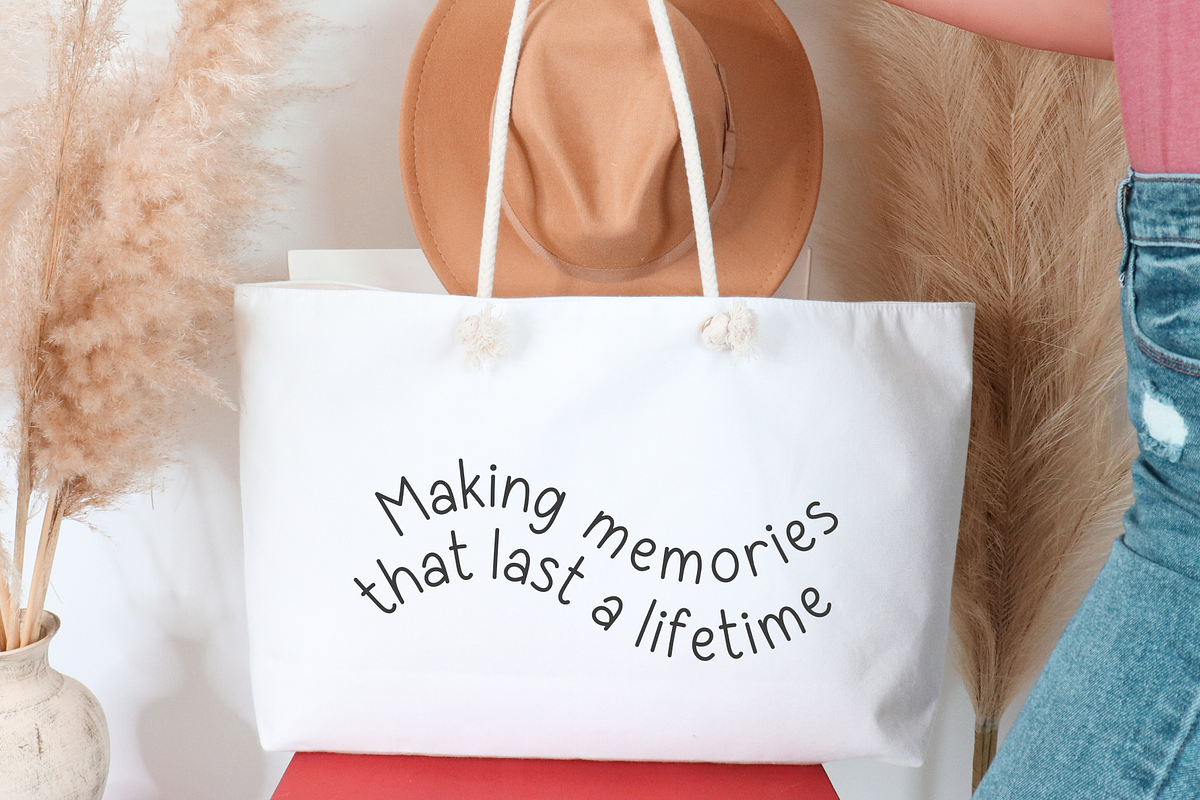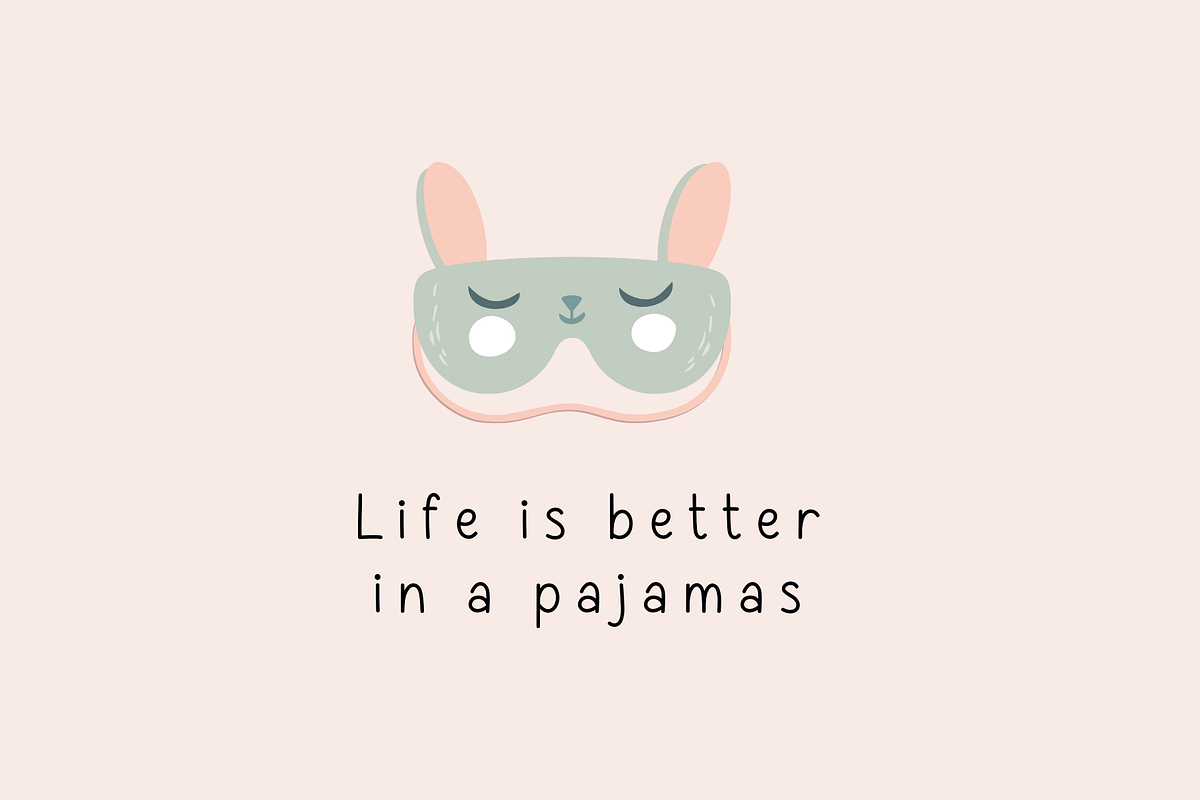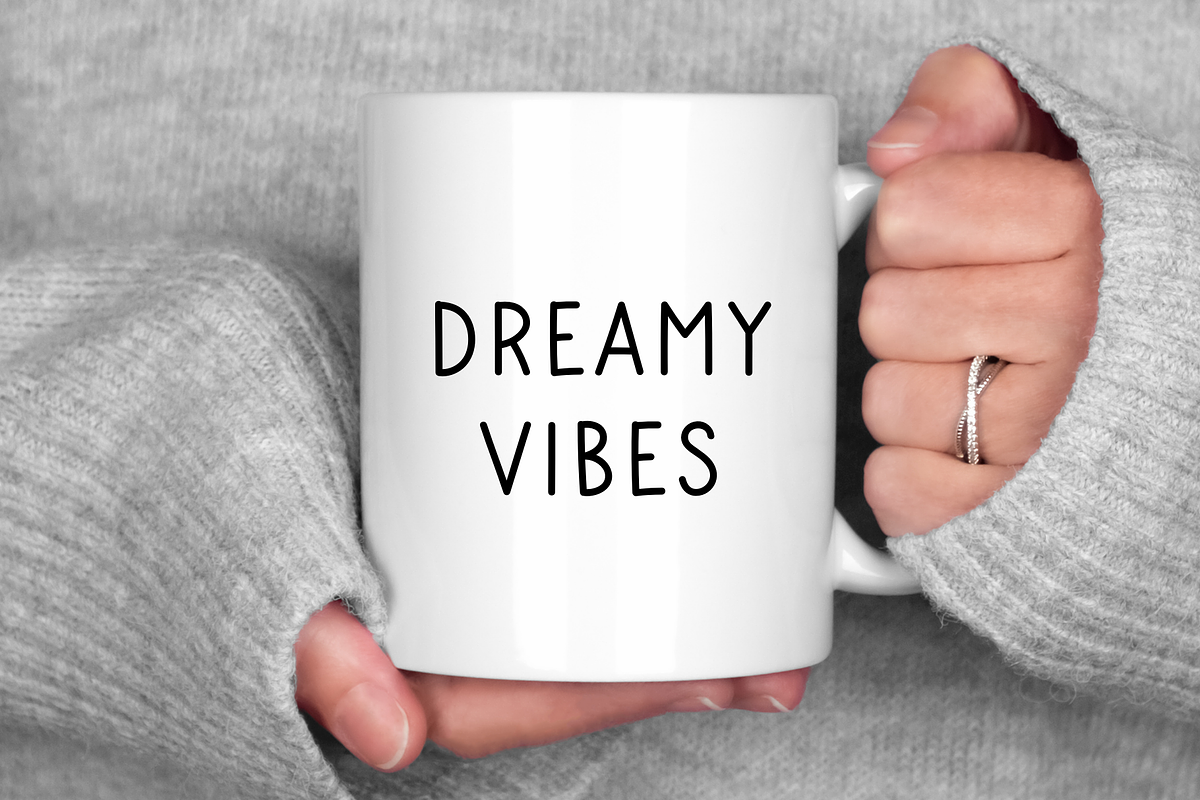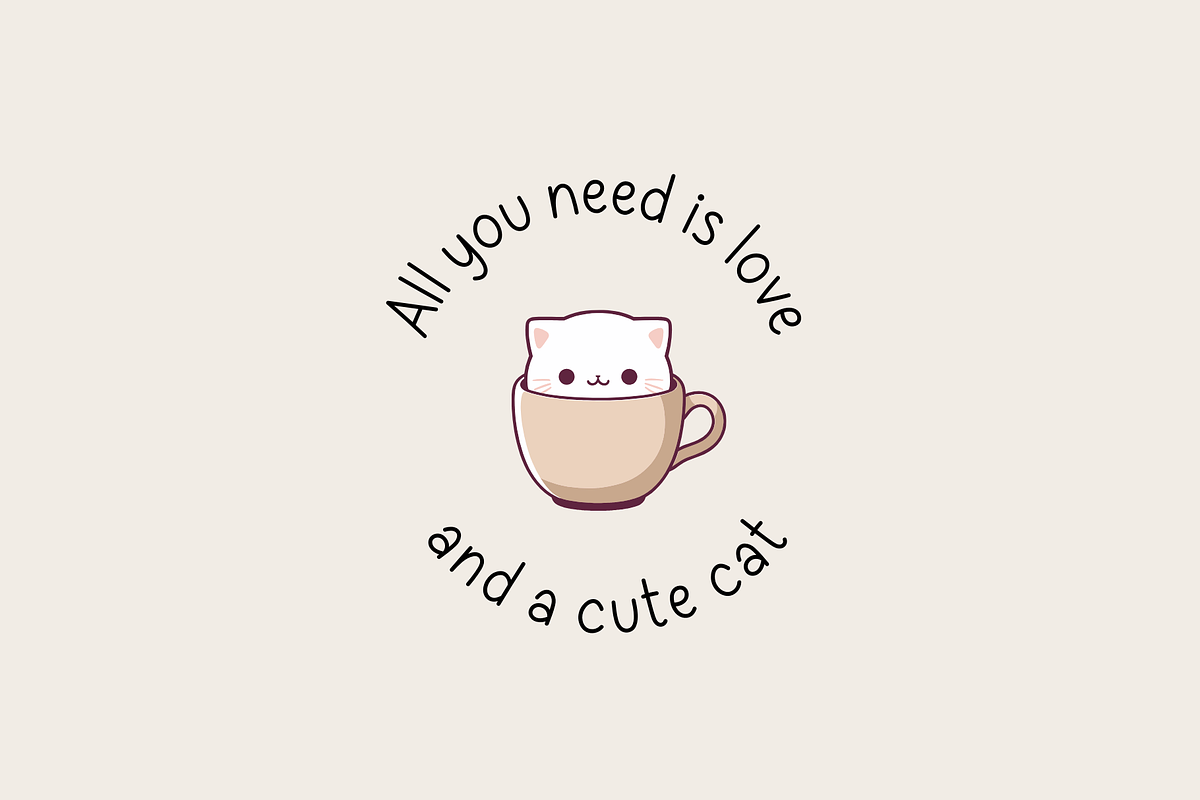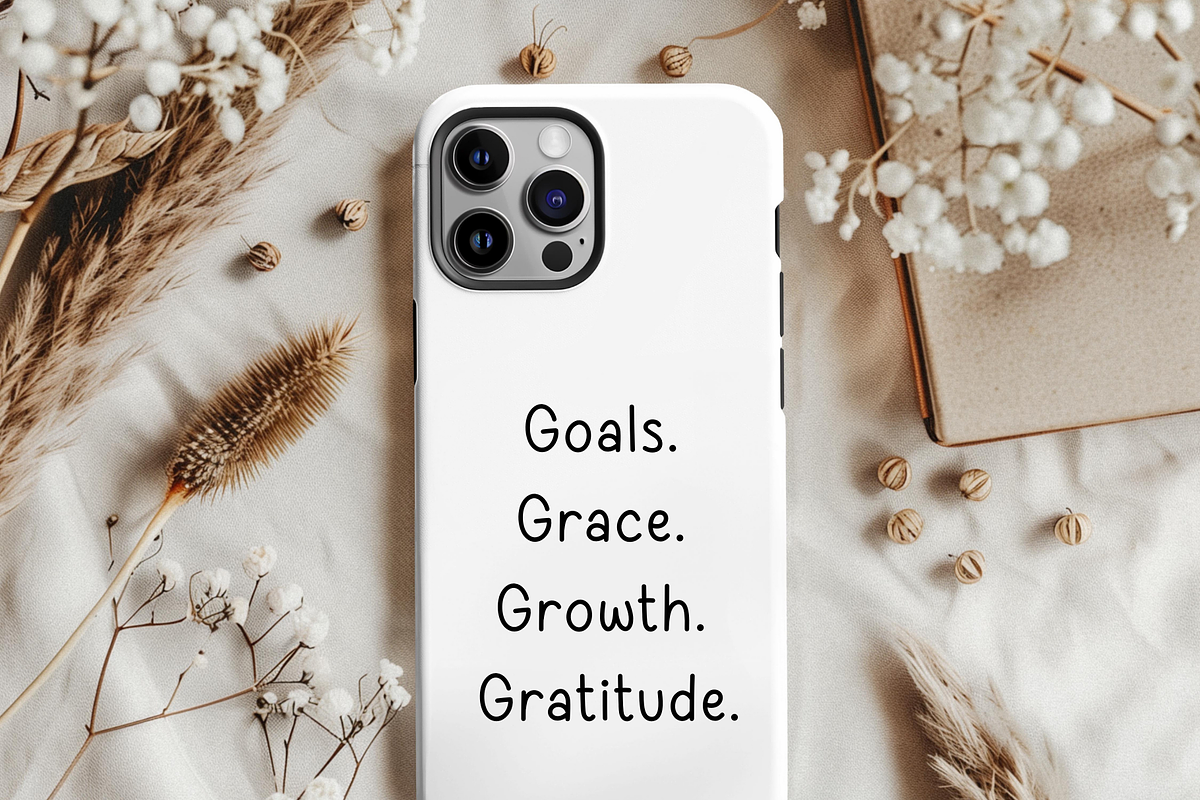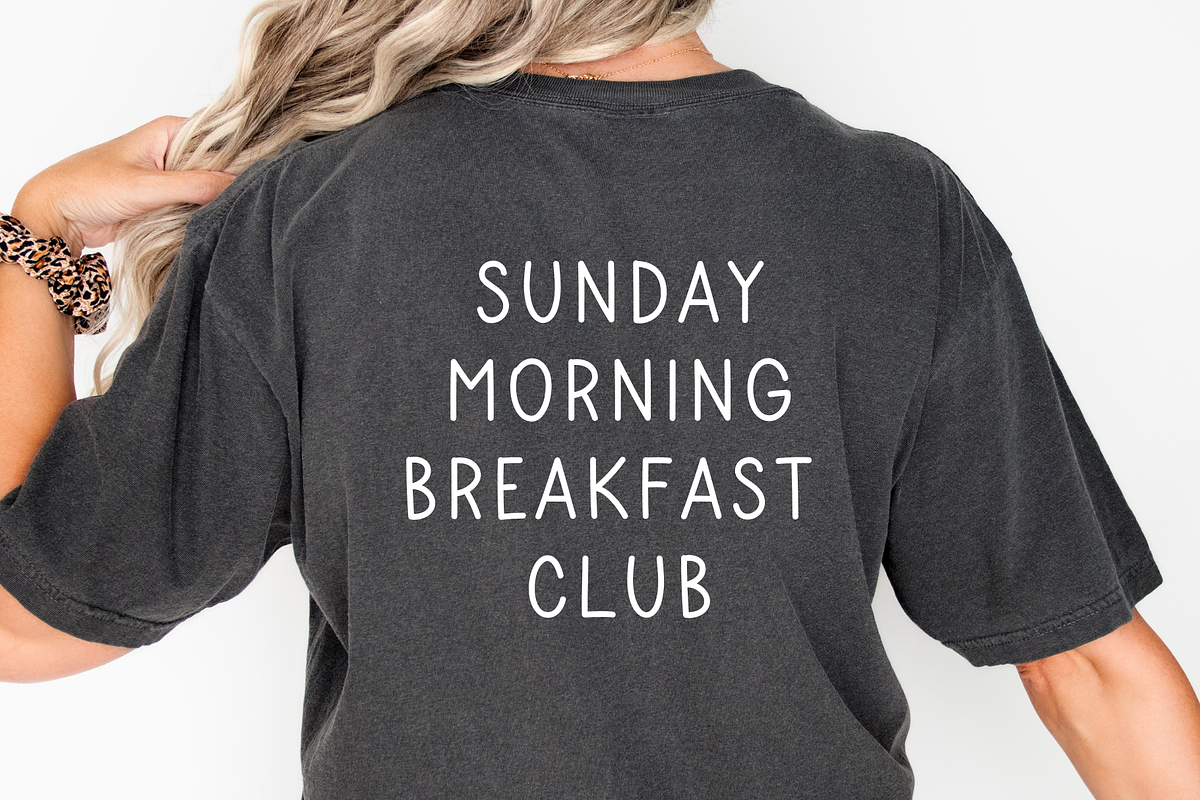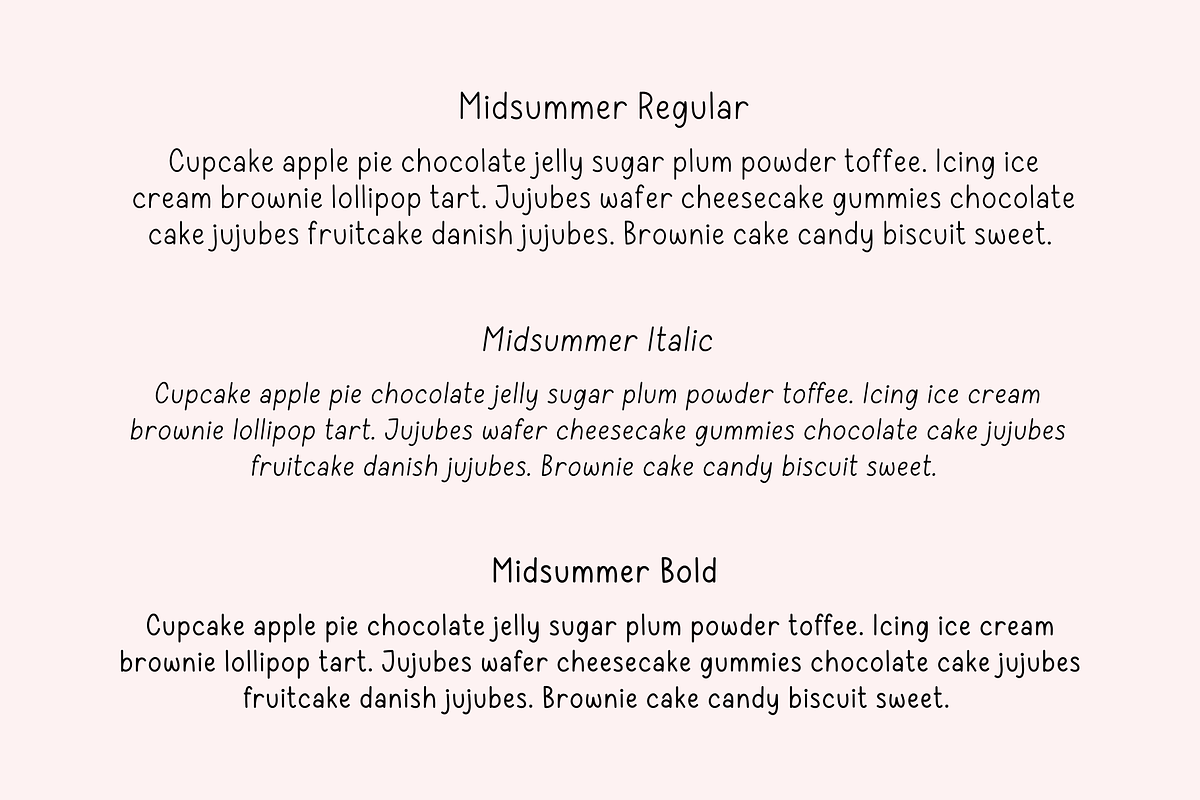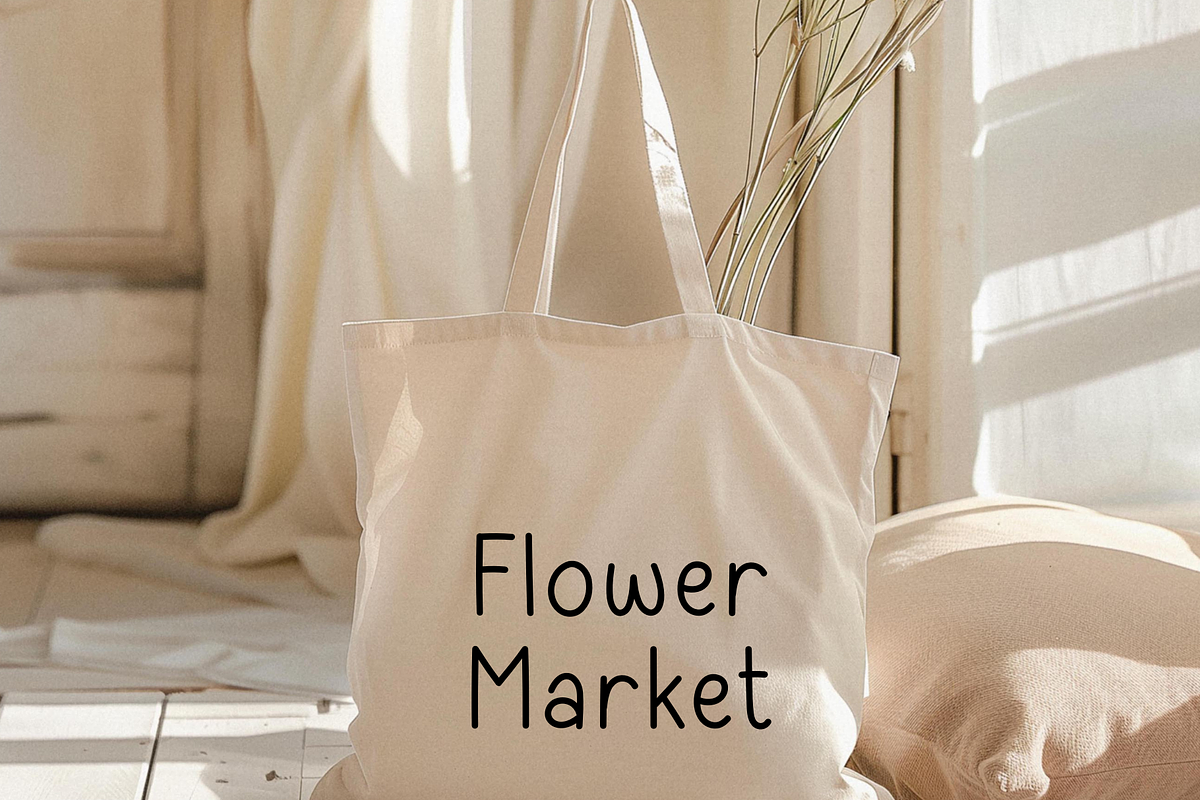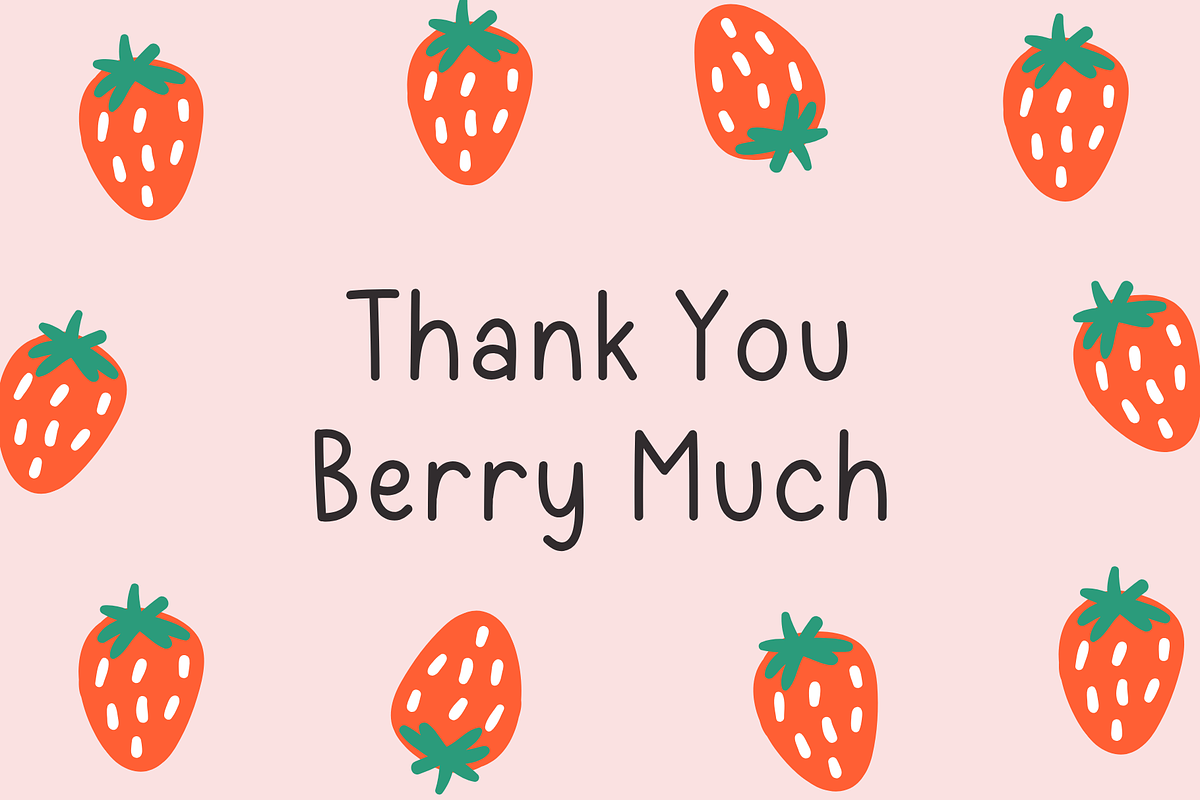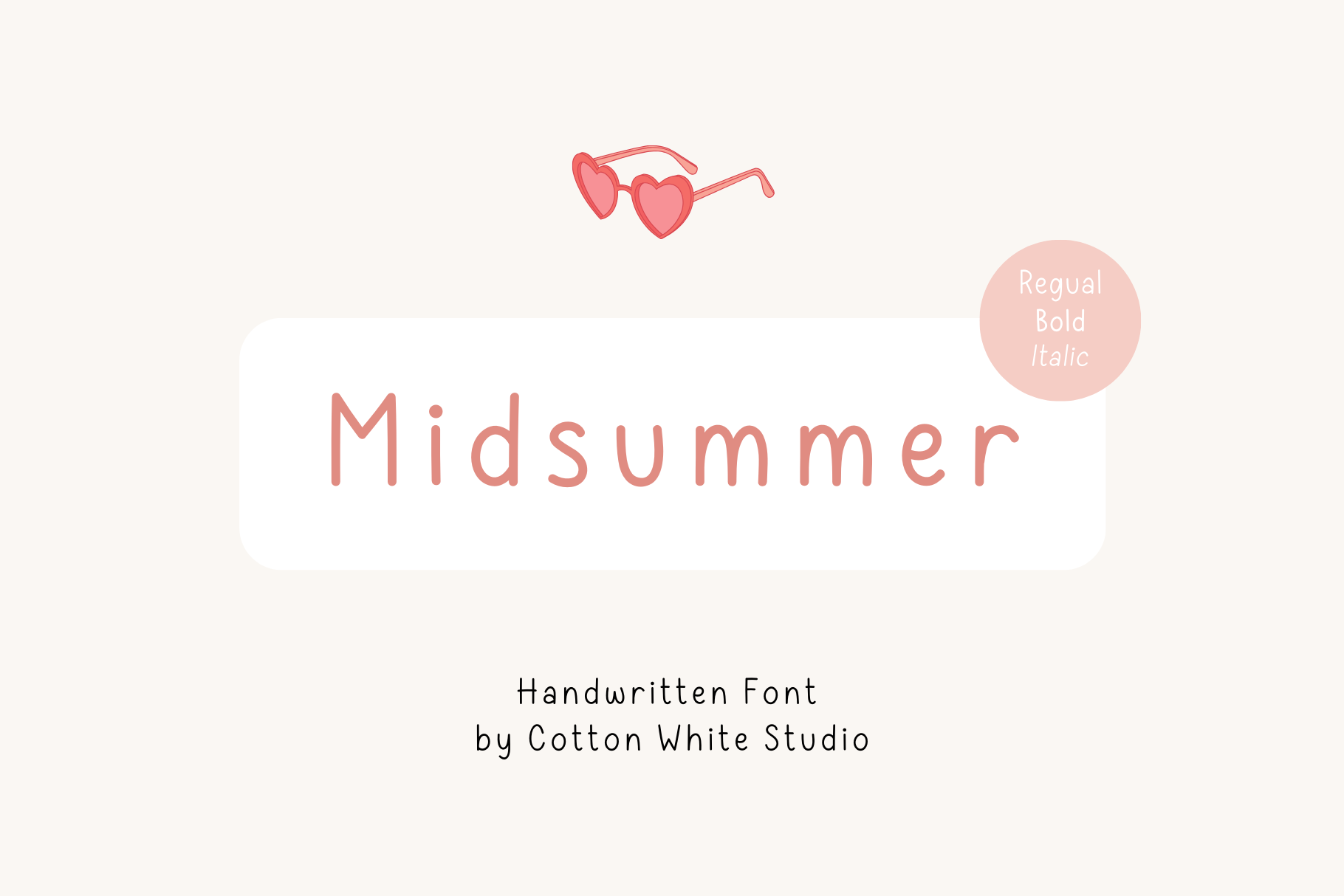
Midsummer Cute Handwritten Font
You can use this font to jazz up your digital planner, journal, invitations, note-taking, or anything that requires a handwriting look. Or use it with your projects on in Cricut, Adobe Illustrator, Photoshop, Canva Pro, Silhouette, Procreate, Affinity, Notability, GoodNotes, and more!